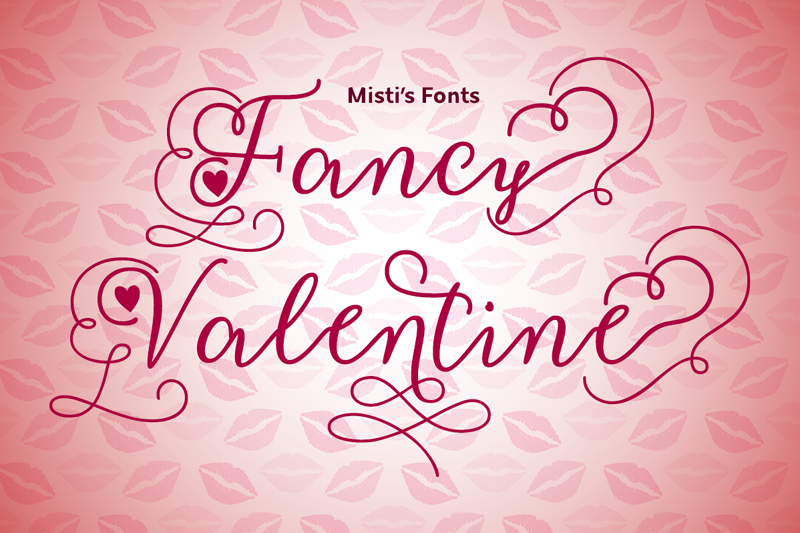
Font name: | Fancy Valentine |
Fancy Valentine is a lovely calligraphy typeface perfect for adding charm to your love-themed projects. Create elegant greeting cards, personalized V-day gifts, stunning products, and more! Terms Of Use and Commercial Licensing: https://mistifonts.com/fancy-valentine/ |